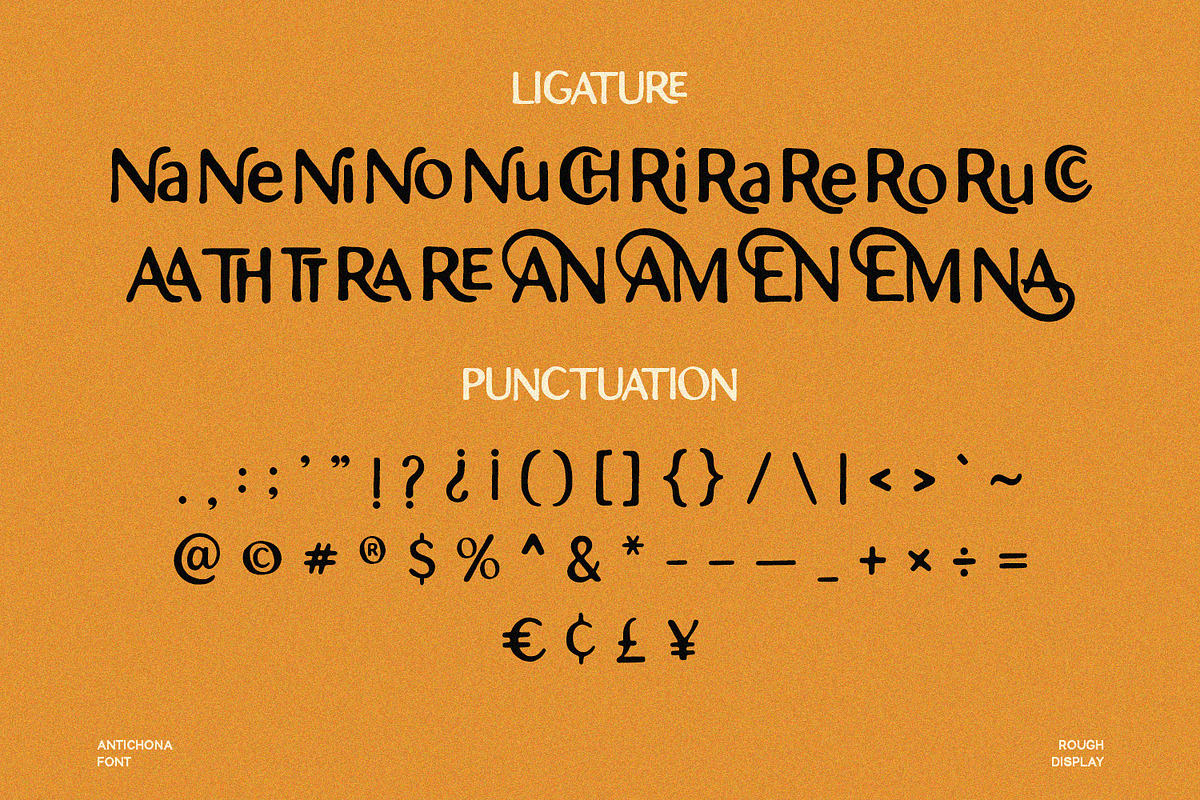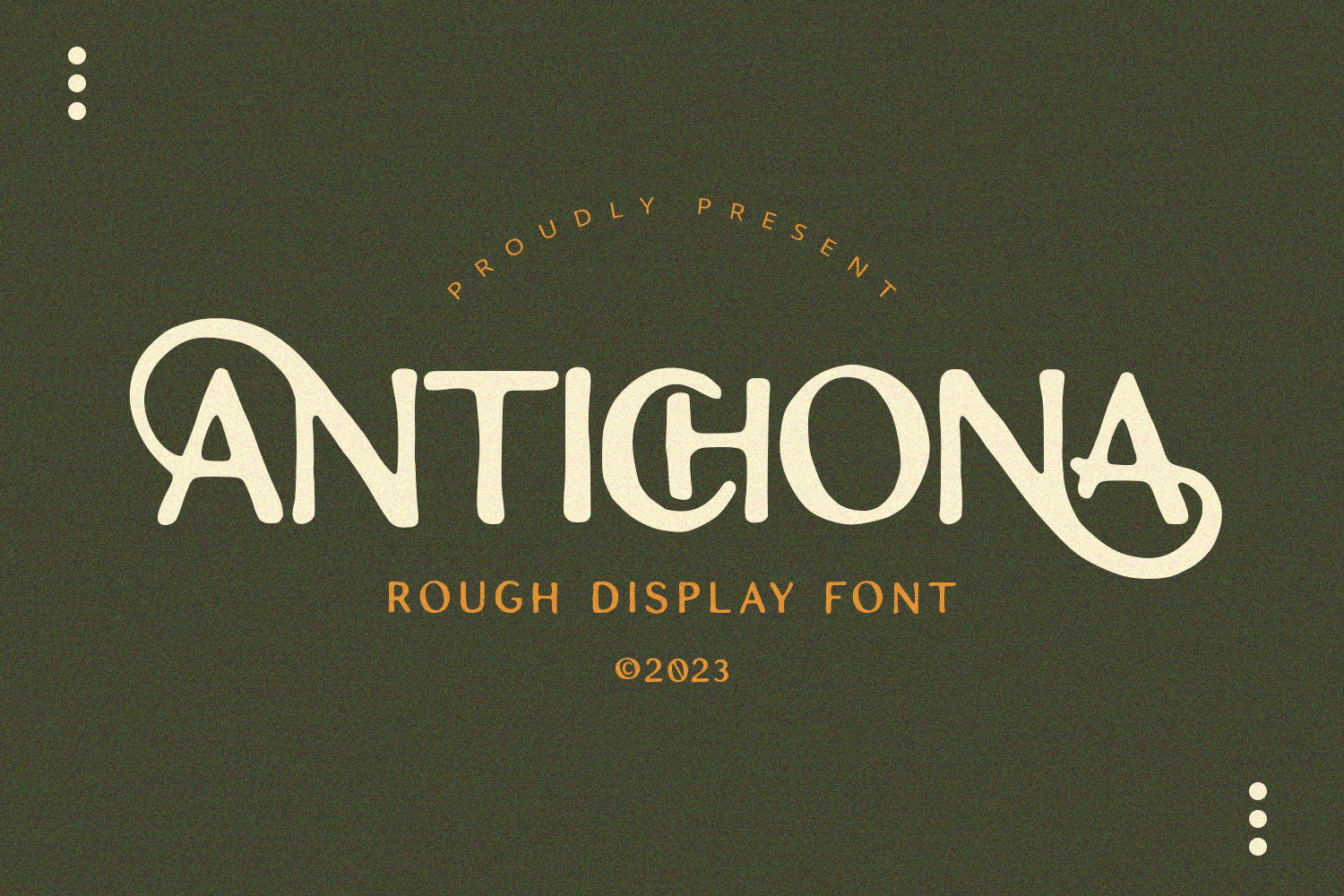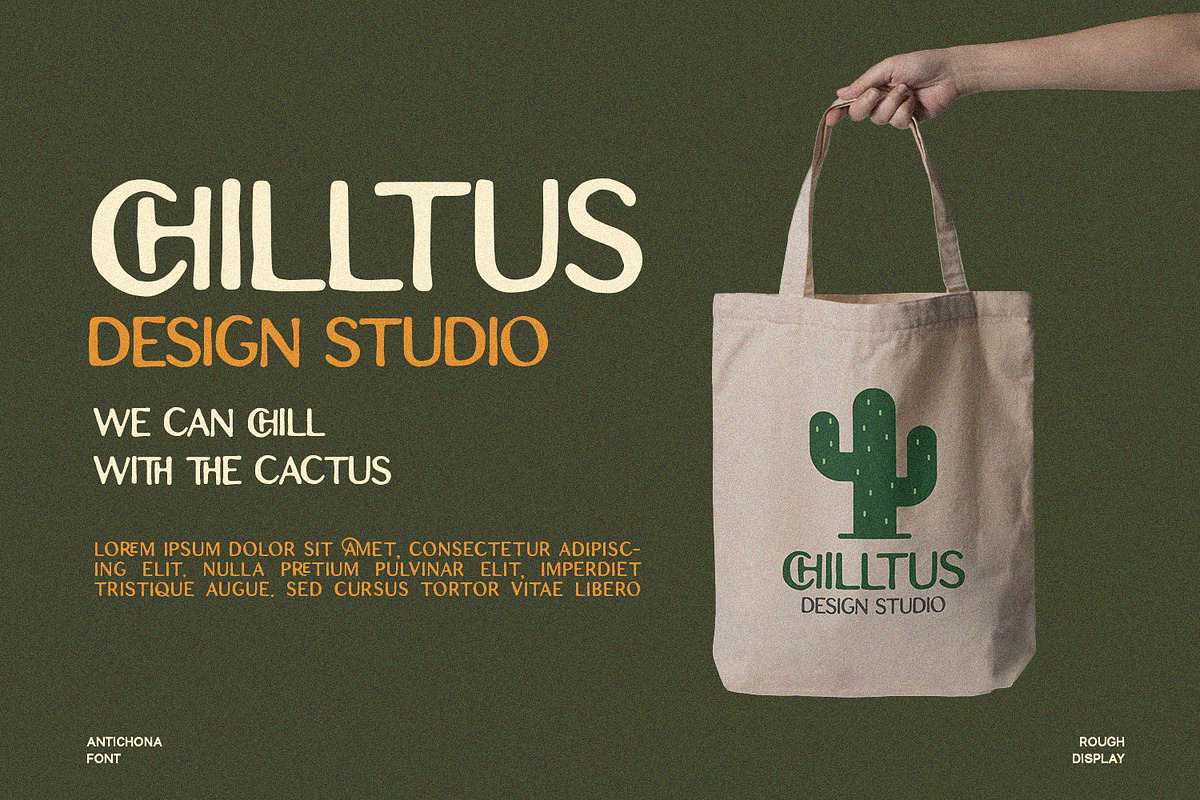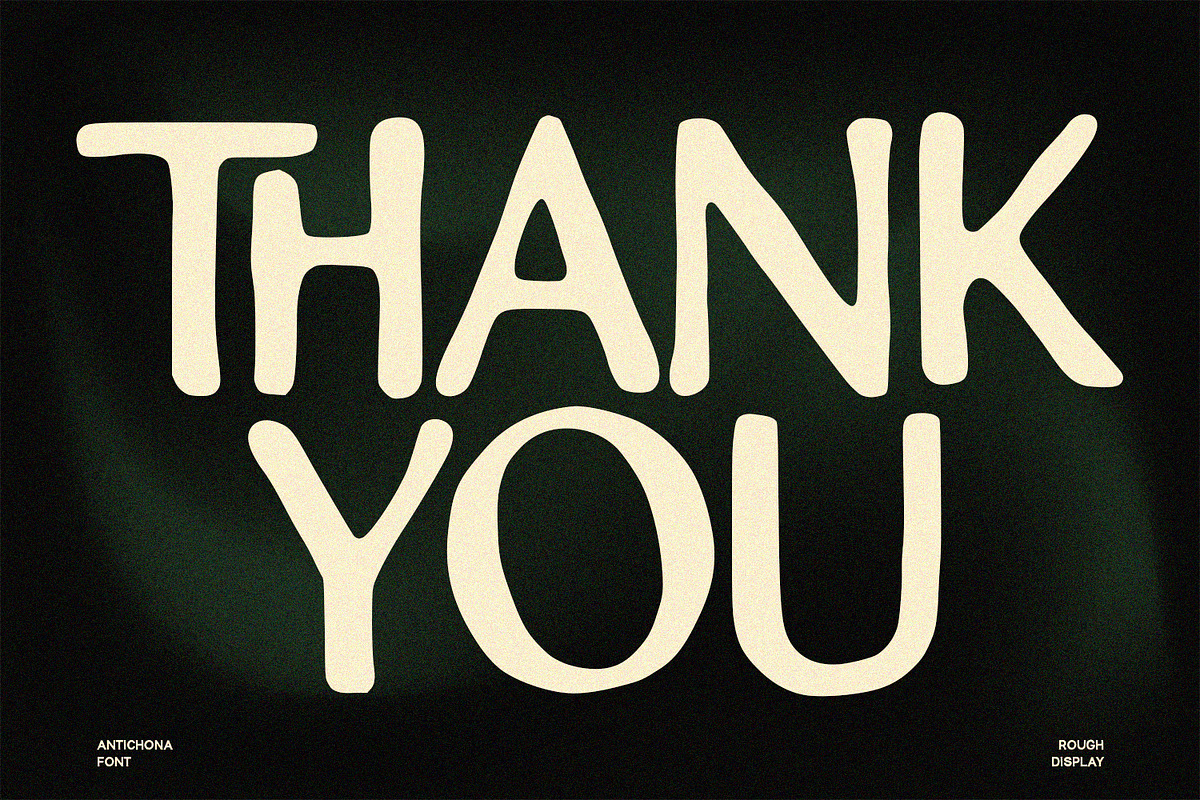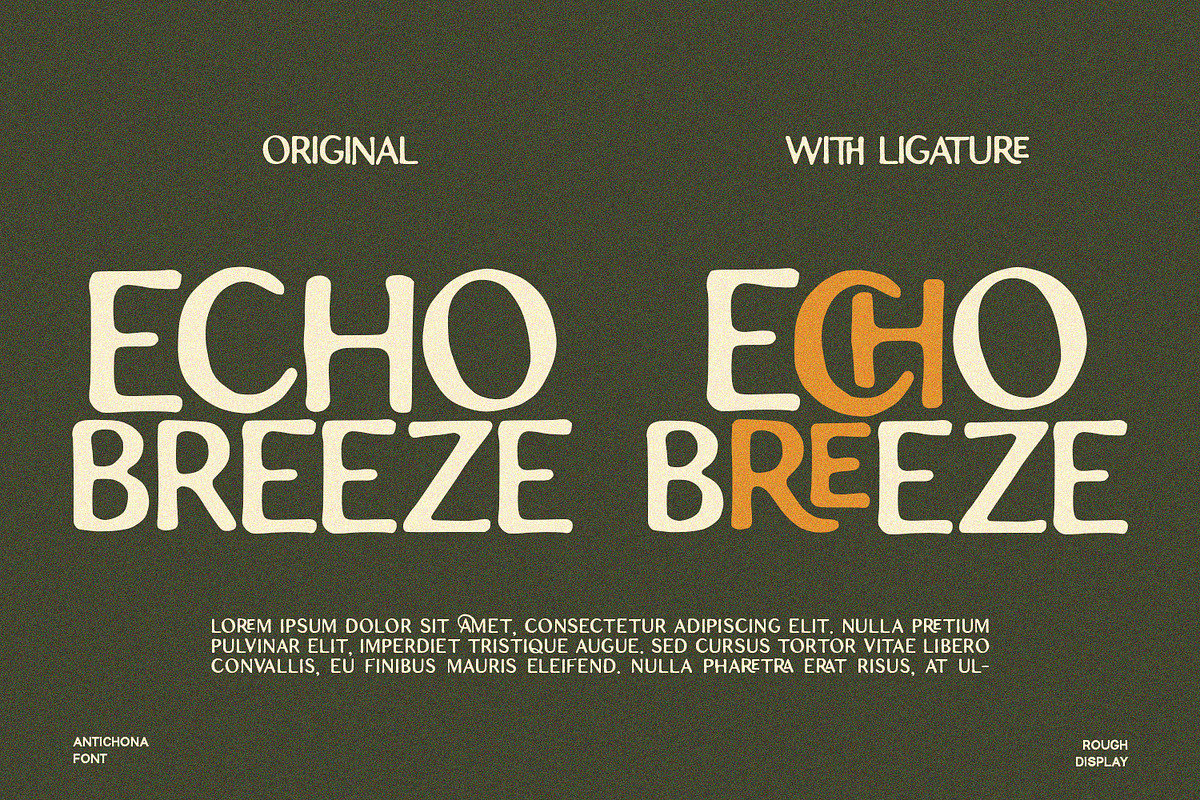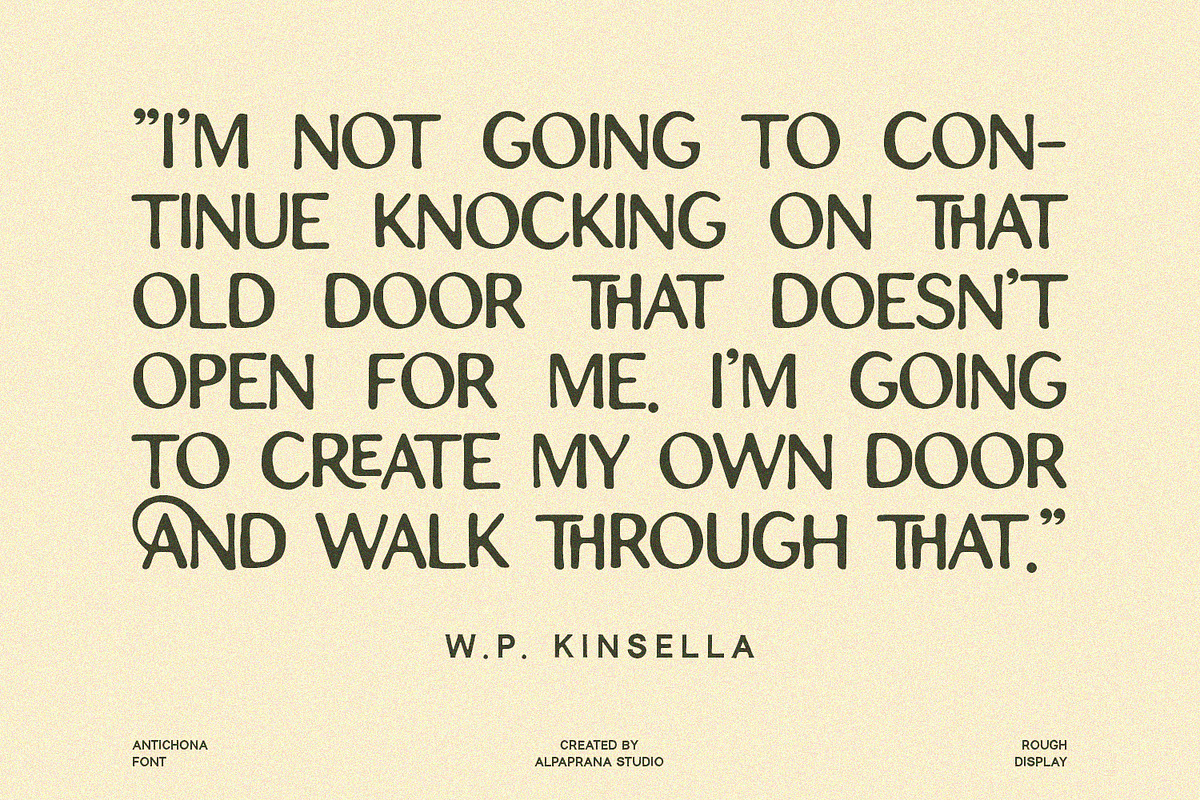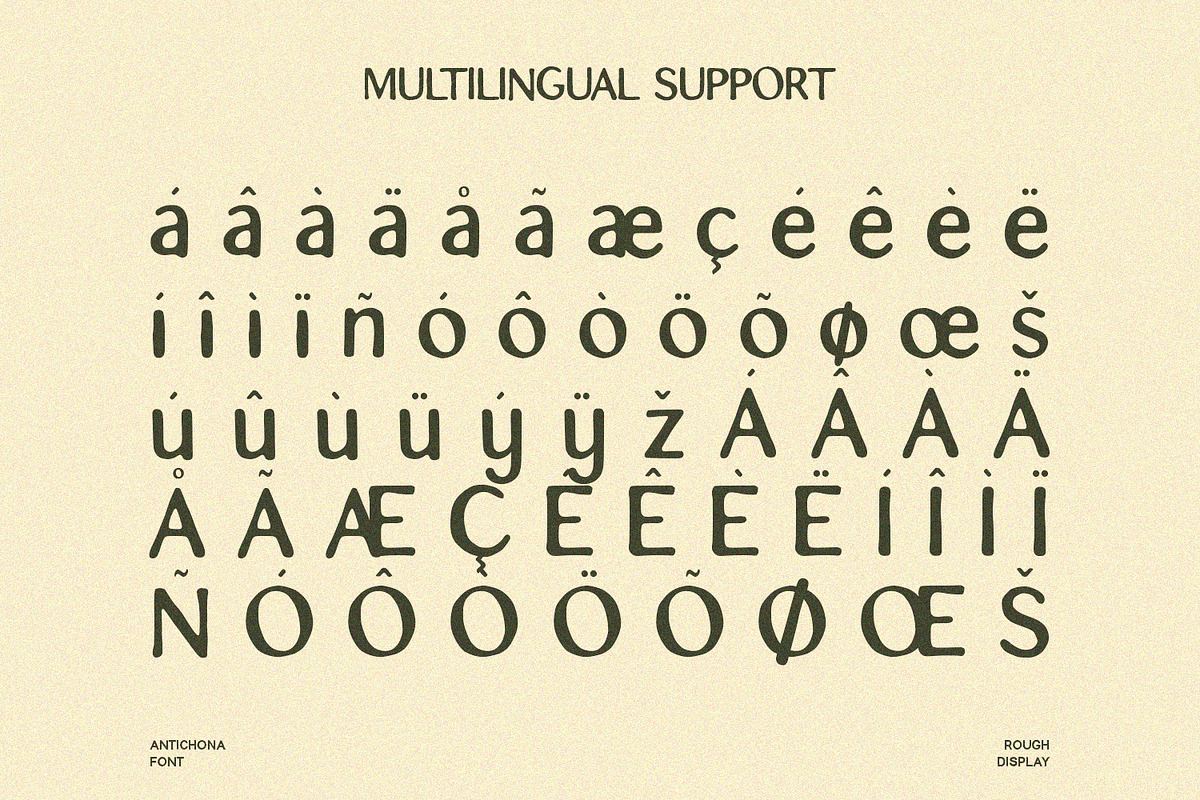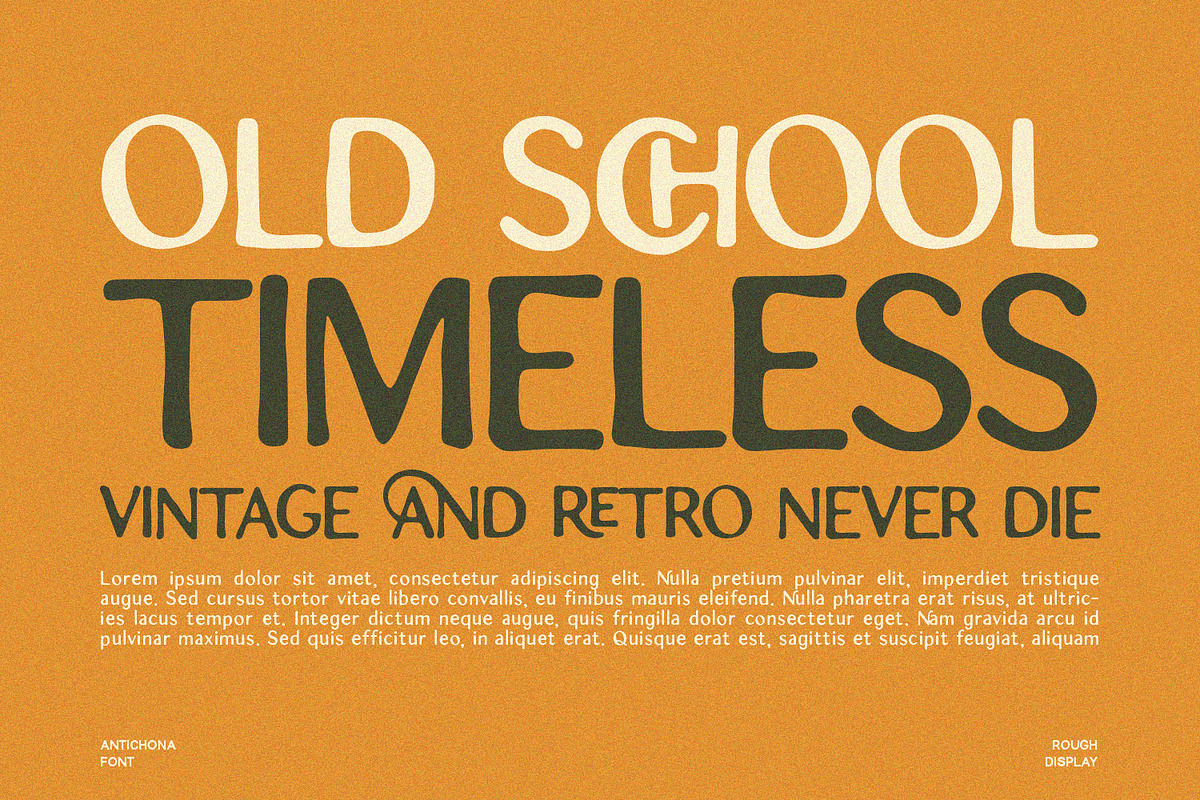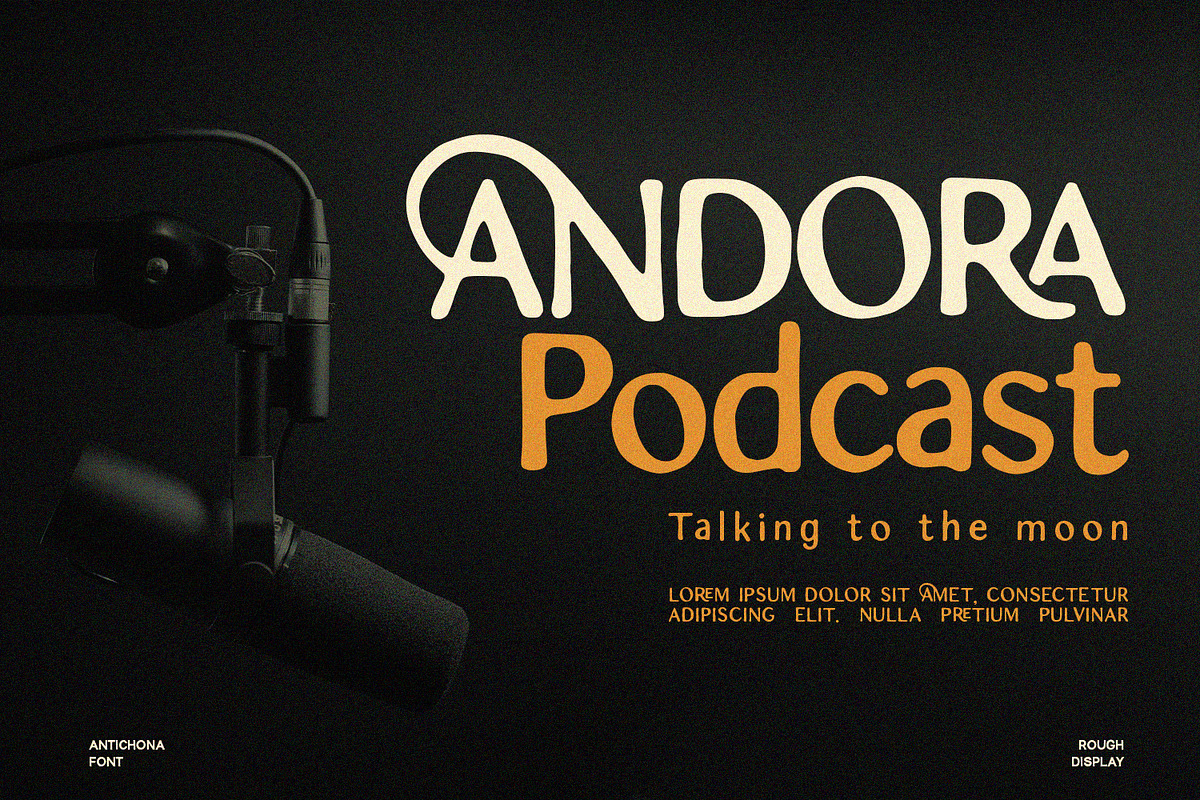
Antichona - Rough Sans Font
Antichona is a rough display font with authentic and retro feels. It will be perfectly used for Branding, Logo Design, Lettering, Logotype, Clothing, Poster, magazine, packaging, posters, shopping bags, t-shirts, book covers, photography, special events and other design project.